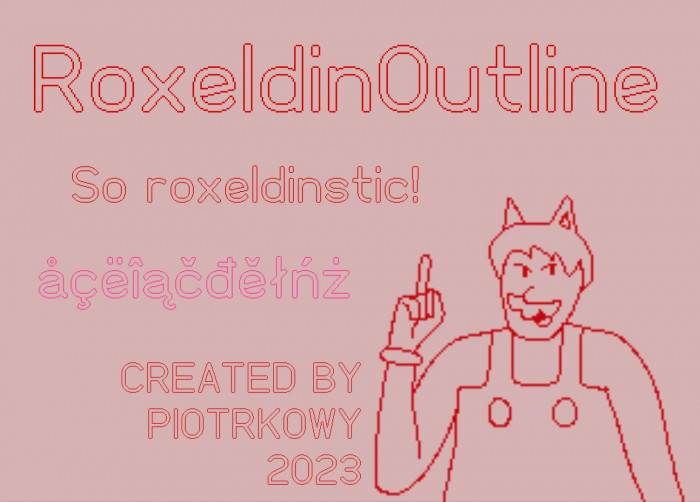
On the lowercase ģ, the comma is usually built above the base letter since it would increase vertical spacing otherwise.
Also, the Ģ, Ķ, Ļ, Ņ, and Ŗ, the glyphs are built with the comma below for Latvian. Use of the Cedilla in Latvian texts is considered wrong. I would get use of the cedilla in Romanian texts as that was before the S and T with commas were added to Unicode, and fonts had to make unencoded glyphs via OpenType code.
Oh, Speaking of S and T with commas, you should probably make glyphs for Ș, ș, Ț, and ț if you haven't done so already.
On the ģ, the comma is also turned 180 degrees